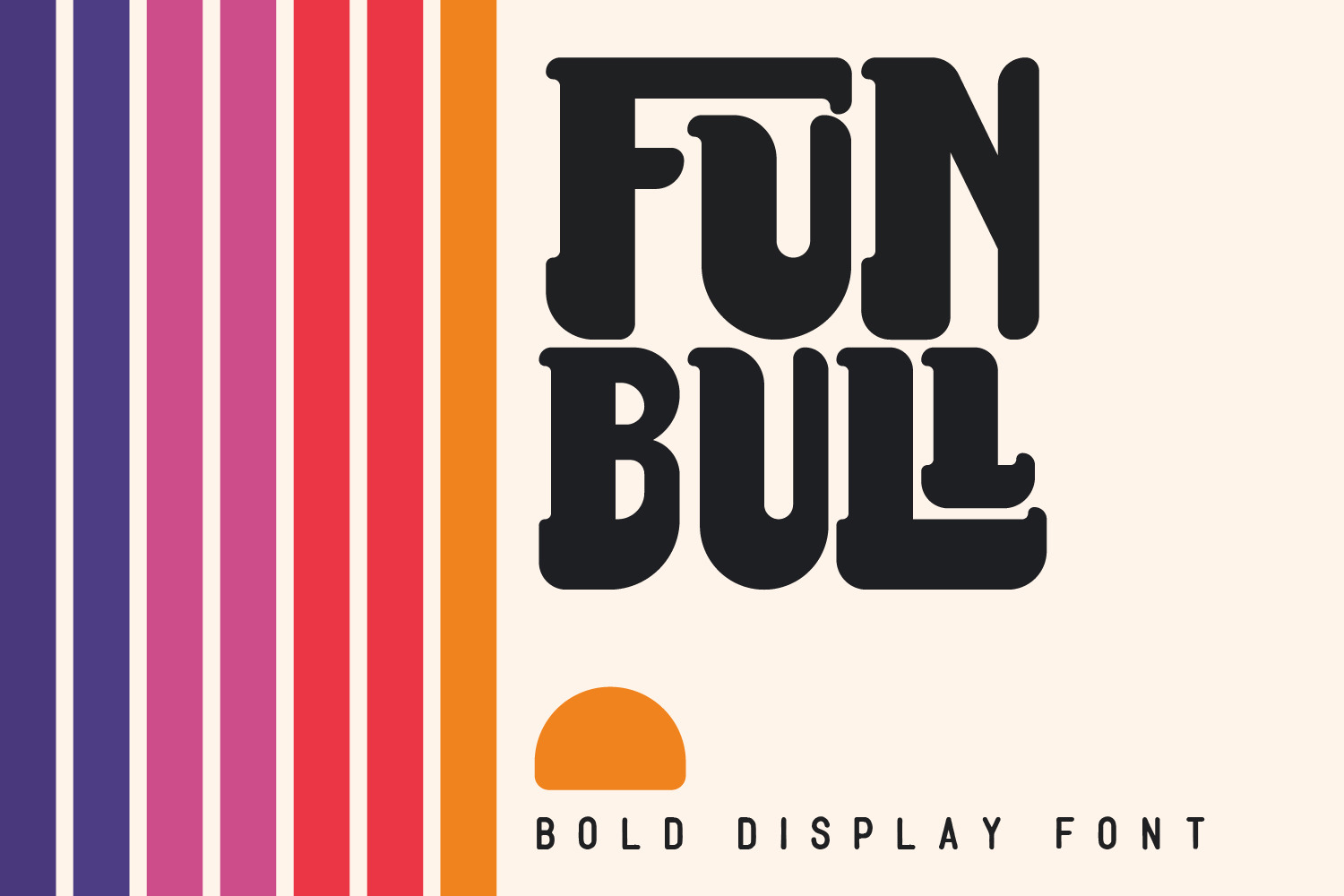
Fun Bull - Bold Retro Modern Font
Fun Bull is a modern take on retro font styles. With this bold display font, you can bring all of your creations to life with a modern retro take. This beautiful typeface includes many alternatives to letter combinations when using it in lowercase, if you prefer your letters separate just use uppercase.